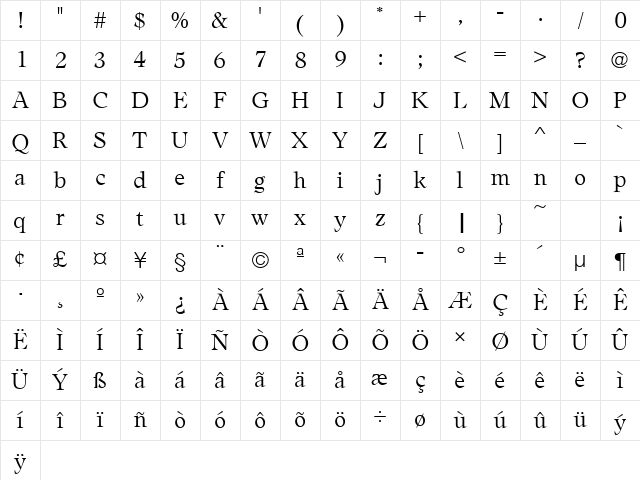
AdroitURWTLig Regular
AdroitURWTLig Family
Design Context for AdroitURWTLig
AdroitURWTLig is a composed and adaptable typeface that performs quietly and consistently across a wide range of design contexts.